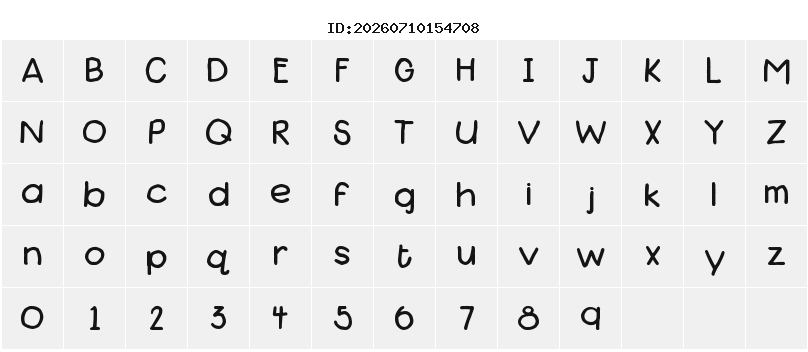
FB Pomegranate Preview
• Font Name: FB Pomegranate
• Font Style: FB Pomegranate
• Full Font Name: FB Pomegranate
About FB Pomegranate.ttf
FB Pomegranate.ttf is a modern, elegant sans-serif font designed for ultimate readability and visual harmony. Perfect for branding, headlines, web design, and print materials.